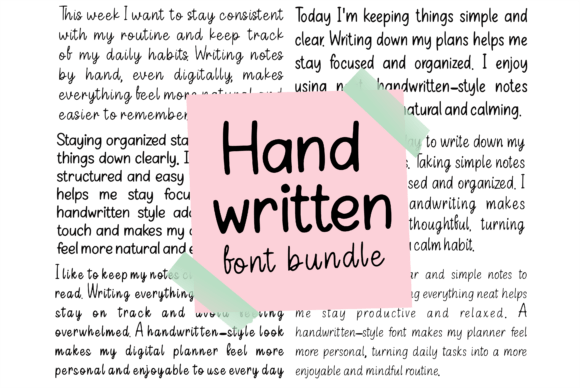
Handwritten Font Bundle for Business Branding
As a small business owner, I have learned that the smallest details often make the biggest difference. When customers scroll past dozens of logos or walk into a crowded market, they need to feel an immediate connection. That is where typography comes in. A Handwritten Font Bundle is not just a collection of letters; it is a tool to inject personality, warmth, and authenticity into your brand identity. Unlike rigid, corporate typefaces, a well-chosen script font can transform your digital space and physical products into something that feels human, approachable, and trustworthy.
The Power of Human Touch in Modern Branding
In a world dominated by sleek, minimalist designs, there is a growing desire for imperfection and character. The Handwritten Font Bundle captures this perfectly. It mimics the natural flow of a pen on paper, bringing a sense of intimacy to your marketing materials. Whether you run a boutique bakery, offer life coaching services, or sell handmade candles, this style of script font signals that there is a real person behind the business. It tells your customer that you care about the craft, the detail, and the personal experience.
This bundle is designed to bridge the gap between professional polish and creative expression. It offers the versatility needed for modern typography without sacrificing readability. For entrepreneurs looking to stand out, using a premium font like this can elevate your brand from generic to memorable. It adds a layer of sophistication that suggests quality and attention to detail, which are crucial factors when building trust with new clients.
Real-World Applications for Your Business
The true value of a Fonts collection lies in its application across various touchpoints. The Handwritten Font Bundle is incredibly versatile, making it suitable for everything from large-scale branding to tiny product labels. Here is how you can integrate this creative font into your daily operations:
- Logo Design: Use the most elegant strokes from the bundle to create a logo that feels bespoke. A handwritten signature-style logo works exceptionally well for beauty brands, cafés, and artisanal food shops.
- Packaging Design: Product labels are prime real estate for storytelling. Imagine a jar of honey or a box of soaps featuring a warm, flowing handwritten font. It instantly communicates that the product is made with care.
- Social Media Graphics: On platforms like Instagram and Pinterest, visuals drive engagement. Use this typeface for quotes, sale announcements, and behind-the-scenes captions to break up block text and grab attention.
- Customer-Facing Materials: From thank-you cards tucked inside orders to menus at your local café, these fonts add a personal note that customers appreciate. It turns a transaction into an interaction.
- Website Banners: As a display font, it can serve as a stunning headline on your homepage, welcoming visitors with a friendly tone before they dive into your content.
Ensuring Consistency and Professionalism
One of the biggest challenges for small businesses is maintaining consistency. If your logo looks different than your social media posts or your packaging, your brand feels disjointed. The Handwritten Font Bundle solves this by providing a cohesive set of characters that work together seamlessly. By committing to one primary typeface for your headlines and accents, you create a recognizable visual language.
Consistency builds recognition. When a customer sees your specific script amp style on a flyer, then again on your website, and finally on their package delivery, it reinforces your brand identity. This repetition makes your business look more established and professional. It shows that you have thoughtfully curated your design assets rather than grabbing random elements from the internet.
Strategic Font Pairing for Readability
While the Handwritten Font Bundle is beautiful, it should not be used for long paragraphs of body text. To maintain readability, especially on mobile screens or small printed labels, strategic font pairing is essential. The best practice is to pair this expressive script font with a clean, neutral counterpart.
I recommend combining the handwritten style with a simple sans serif font for your main content. Sans serifs are modern and easy to read, allowing the decorative nature of the handwriting to shine as an accent without overwhelming the viewer. Alternatively, a classic serif font can add a touch of tradition and authority, creating a balanced contrast between the playful and the serious. Always test your combinations at different sizes. What looks great on a large banner might become illegible on a 2-inch sticker. Ensure the Handwritten Font Bundle remains clear and distinct even when scaled down for business cards or product tags.
Testing and Licensing: Practical Advice for Entrepreneurs
Before you commit to rolling out a new font across your entire brand, take the time to test it. Create mockups of your product packaging, your website header, and a few social media templates. Live with these designs for a few days. Does the font still feel right? Is it legible in black and white? Does it convey the mood you want?
Whether you are launching a new line of organic skincare, opening a cozy coffee shop, or starting a consulting firm, the right design assets can set the tone for your entire operation. This bundle offers the flexibility to adapt to your unique needs while ensuring your brand remains consistent, professional, and visually appealing. Embrace the art of lettering to make your business not just seen, but felt.